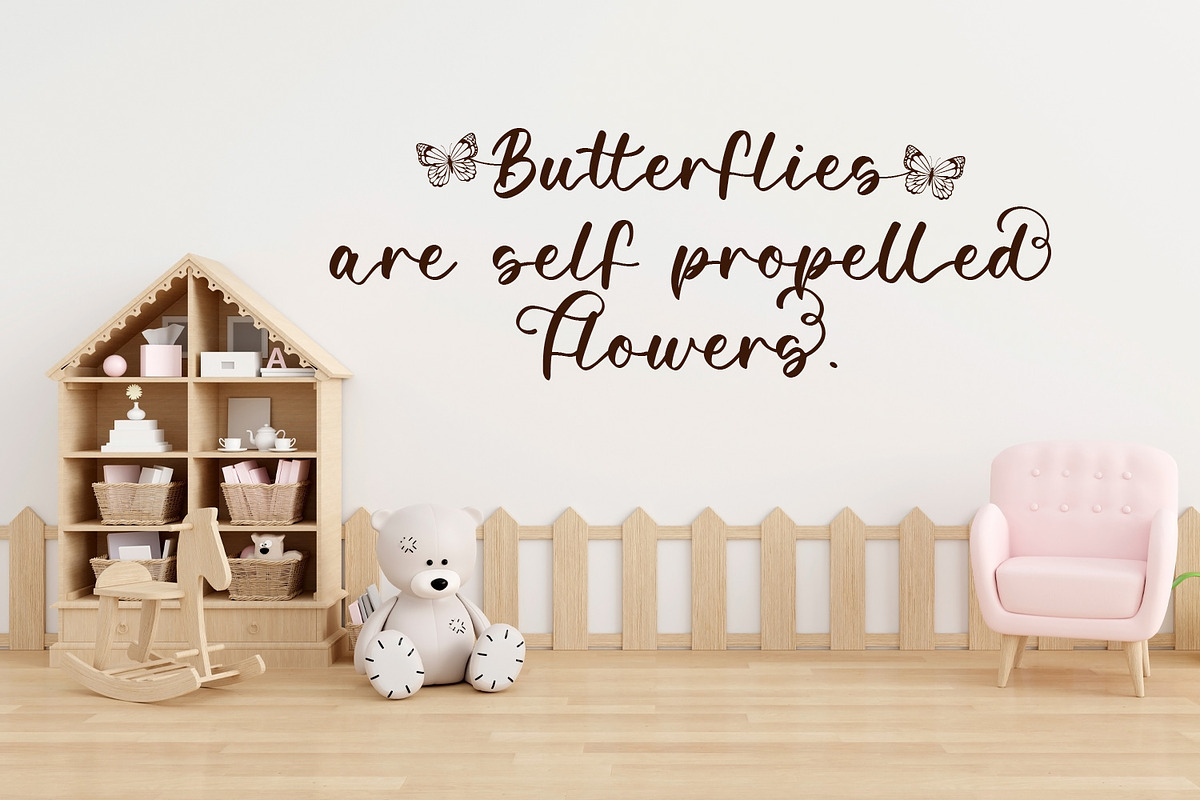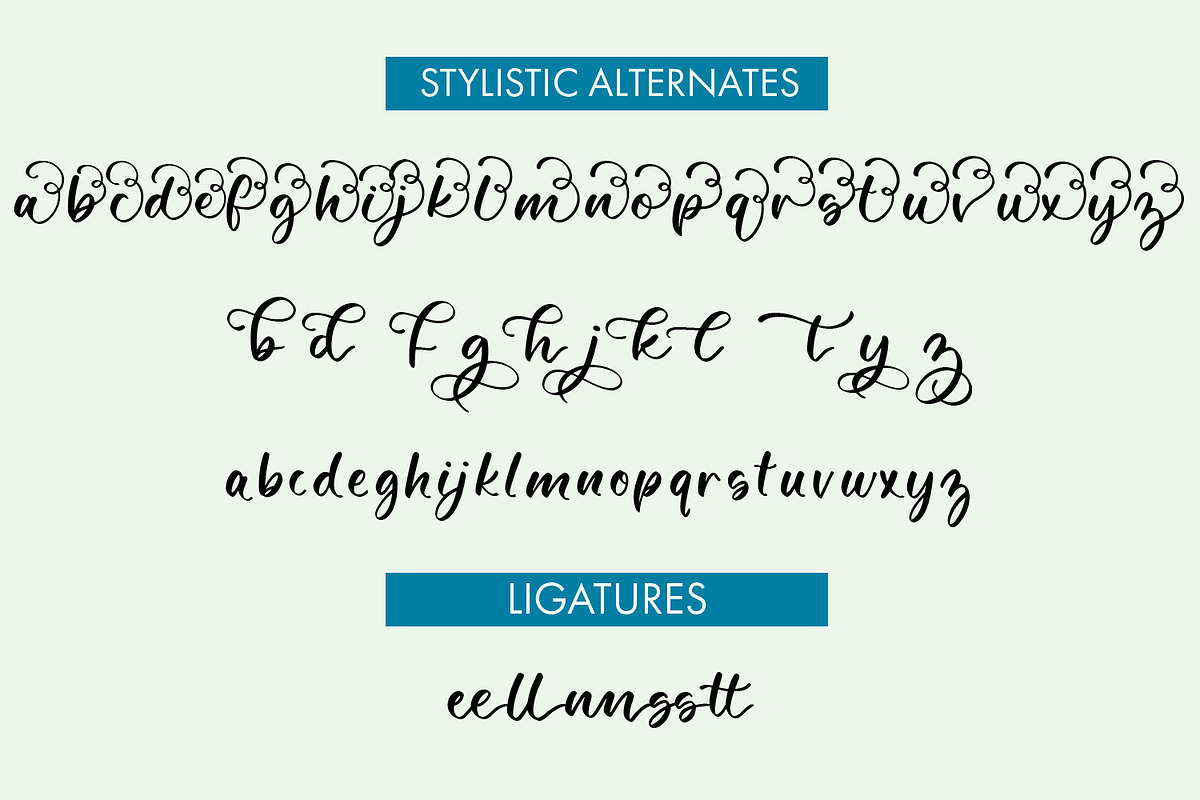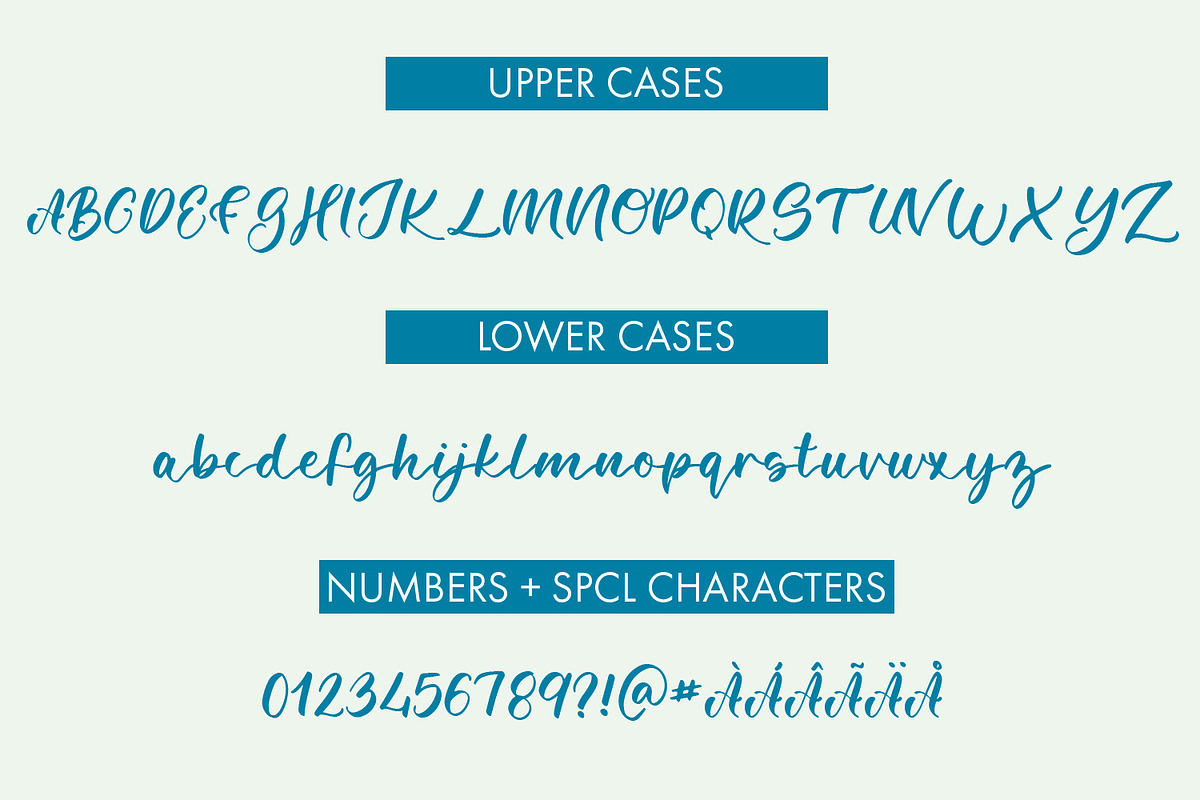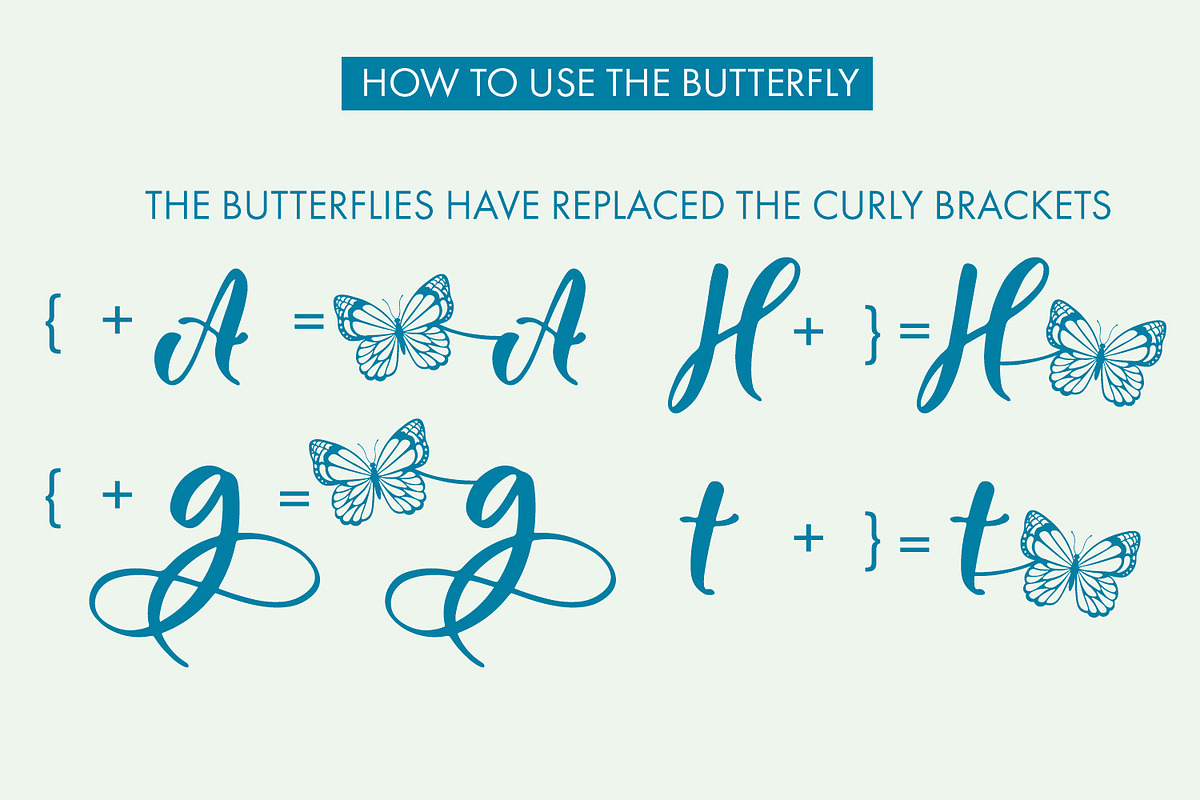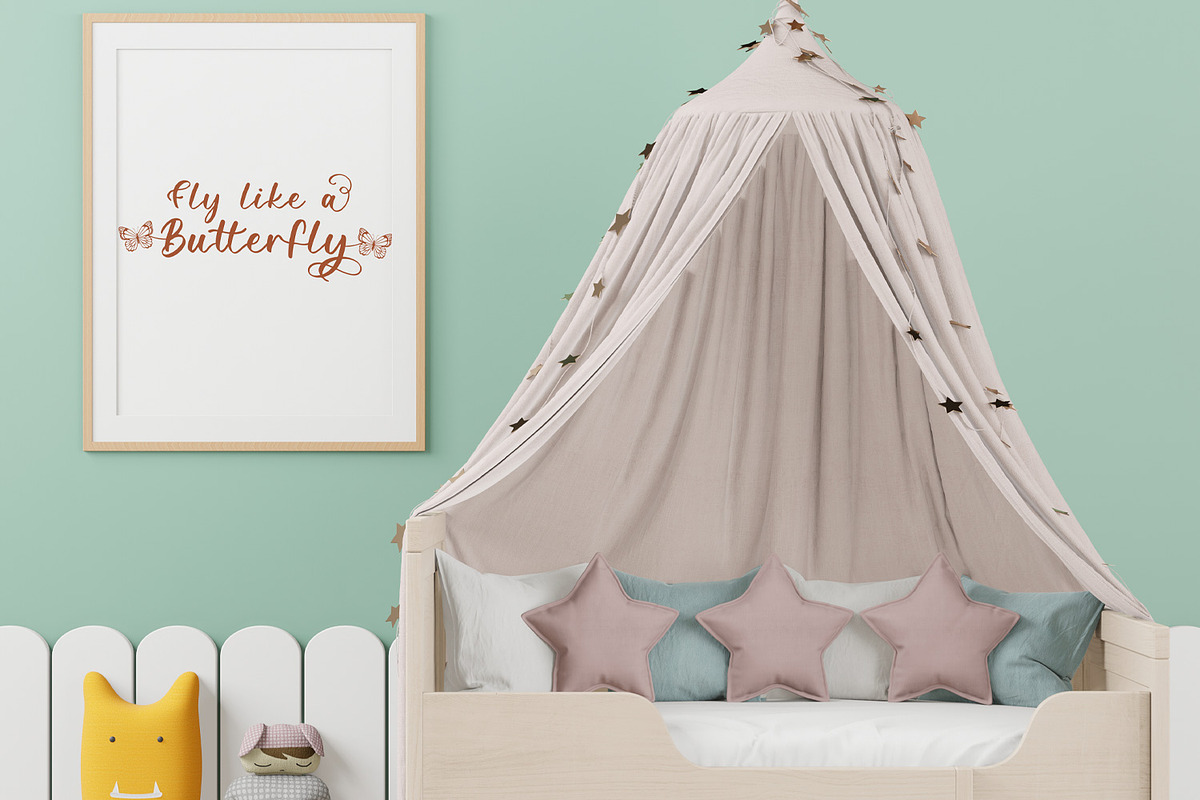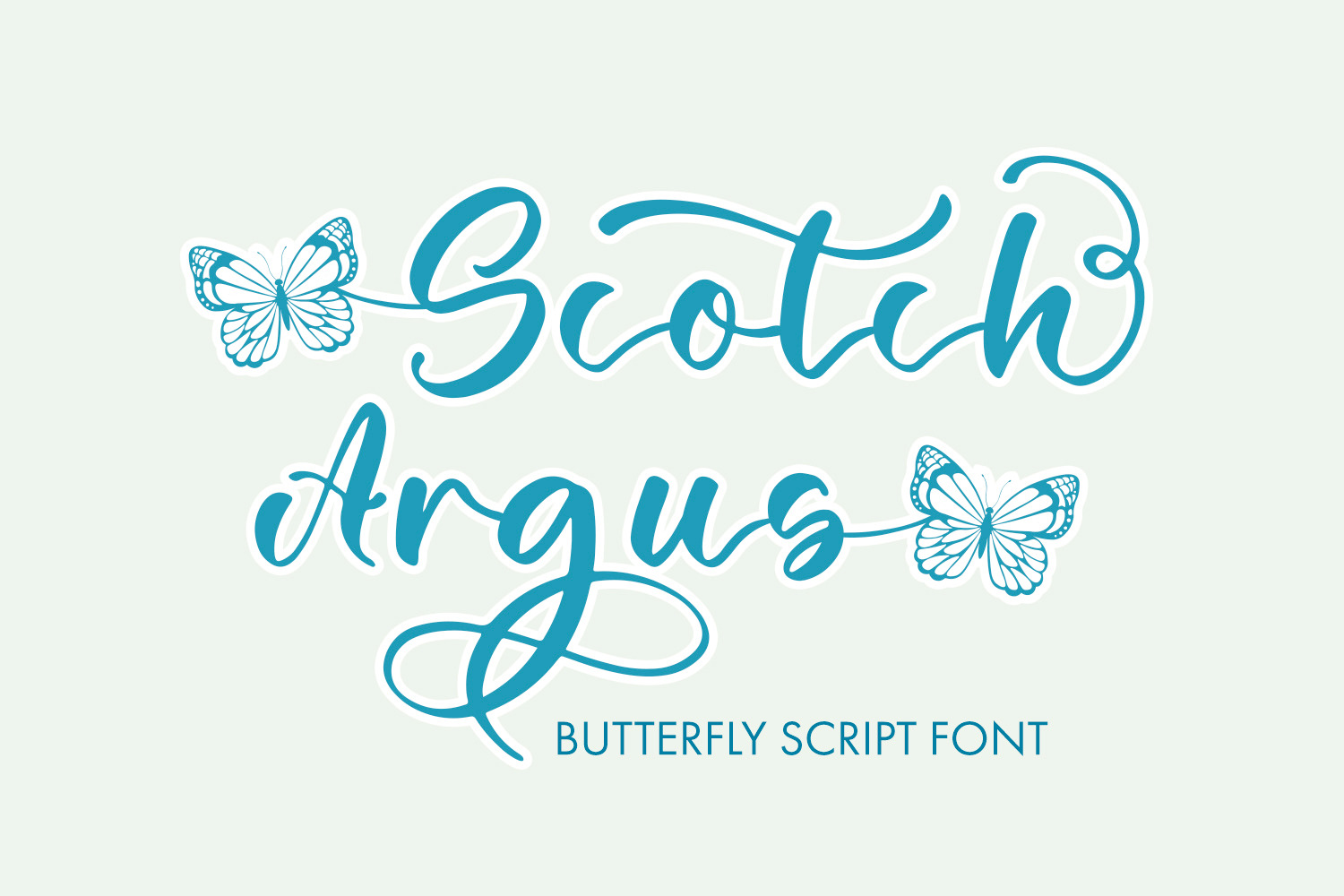
Scotch Argus Butterfly Script Font
Elevate your designs with our exquisite Handwritten Calligraphy Font! With stylistic alternates and charming swashes on lowercase letters, your creativity knows no bounds. Plus, each letter can flutter to life with butterfly embellishments. Whether it's invitations, branding, or decorative projects, add a touch of elegance and whimsy to your work.